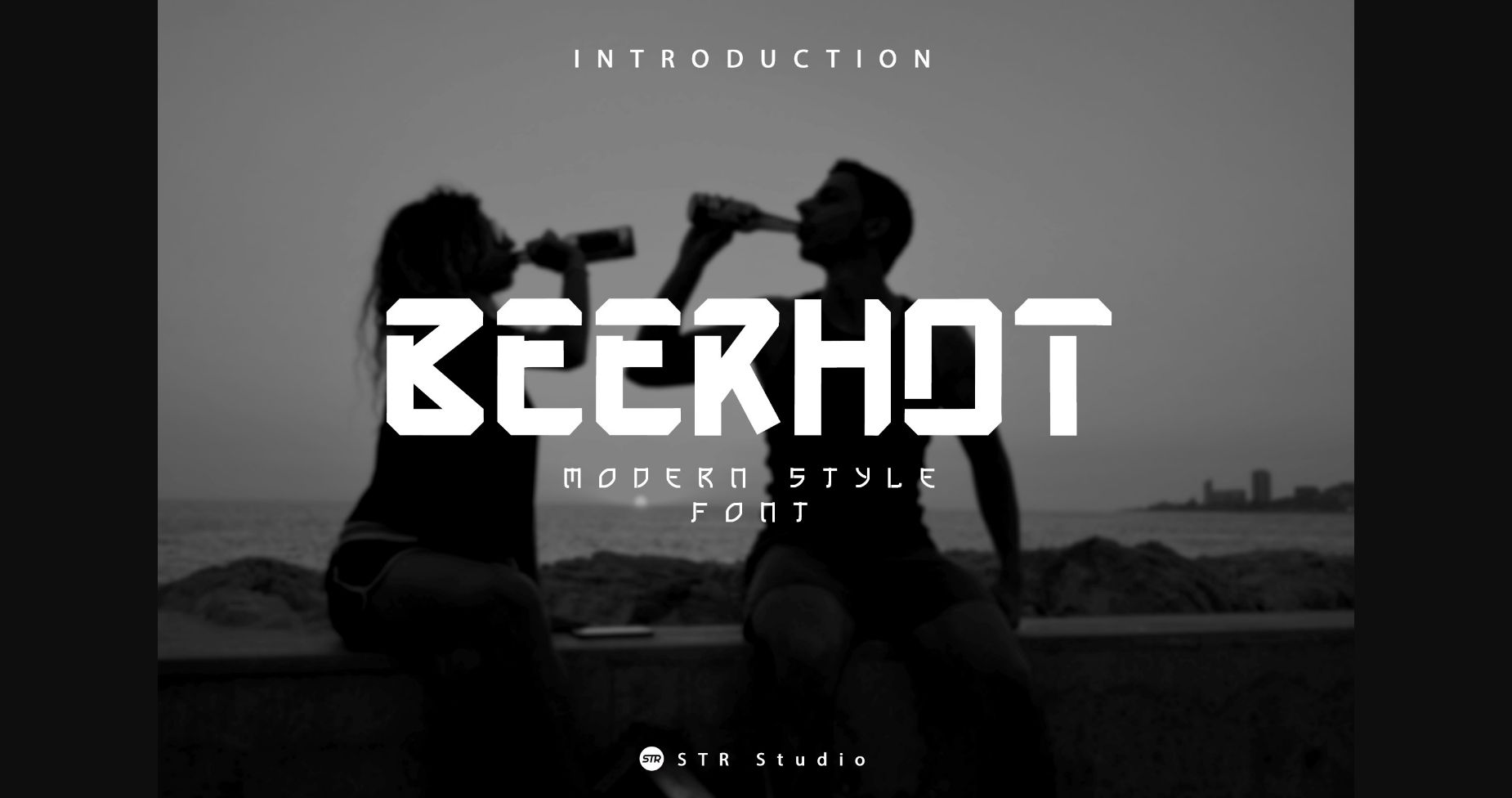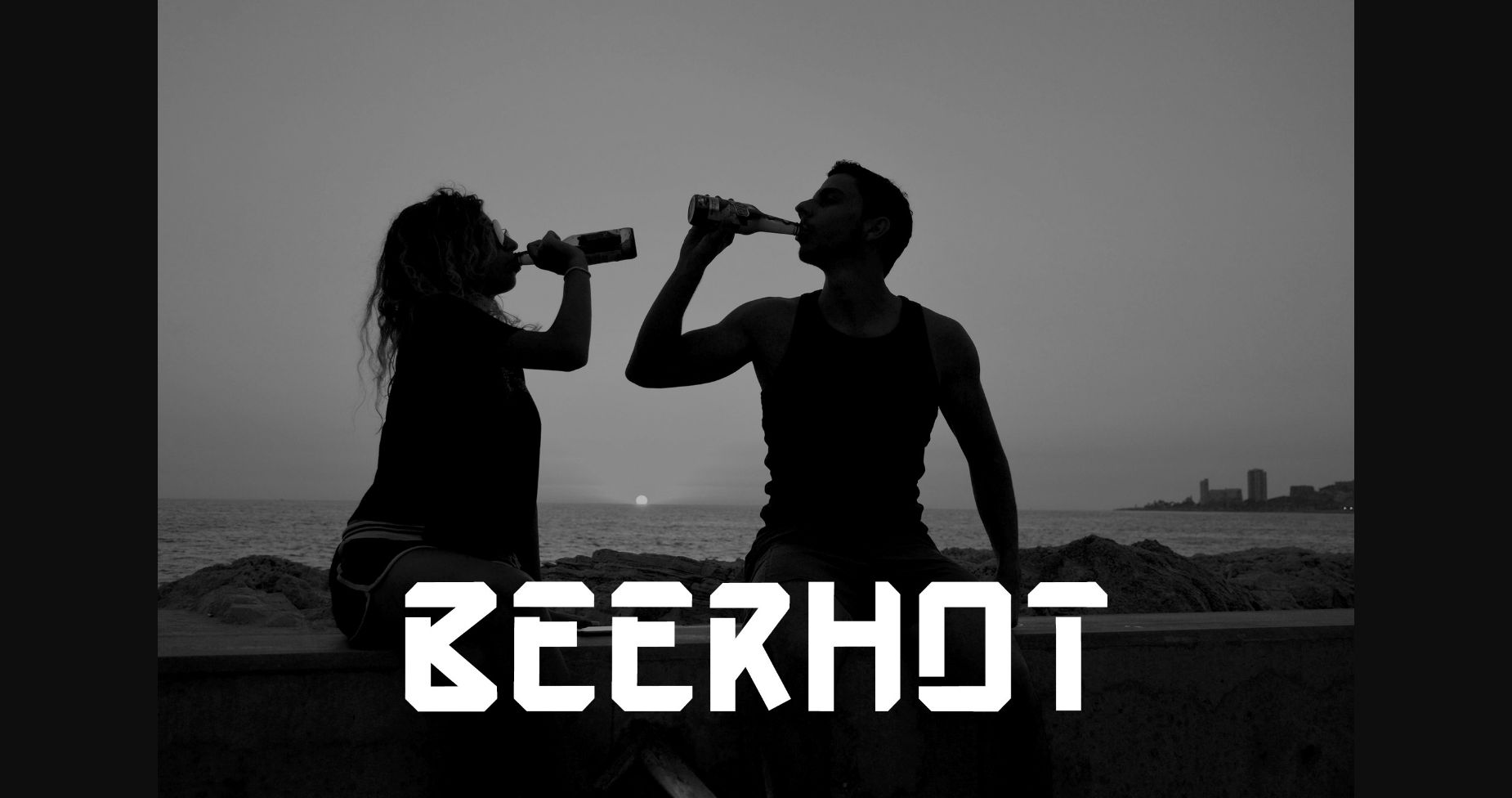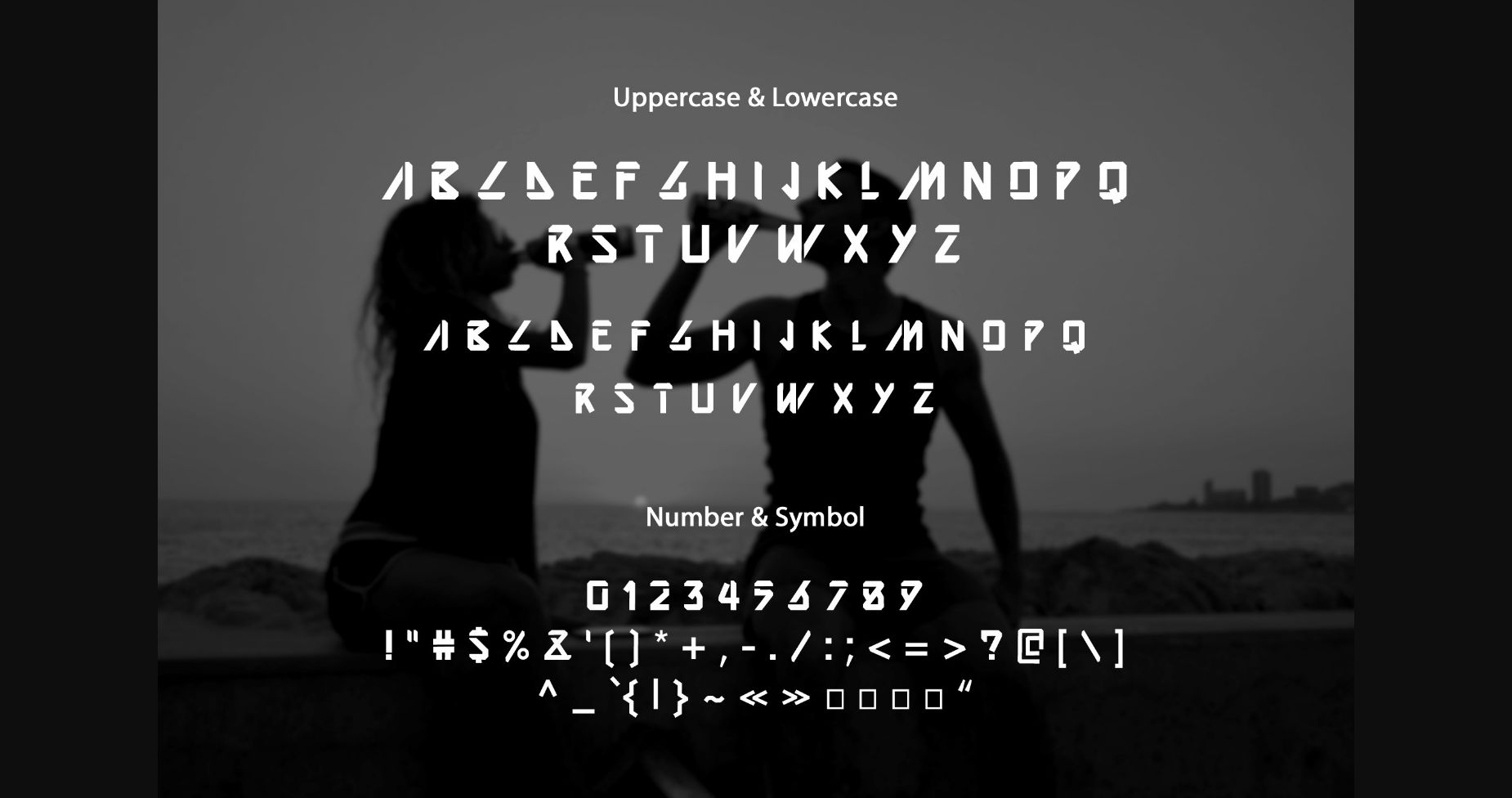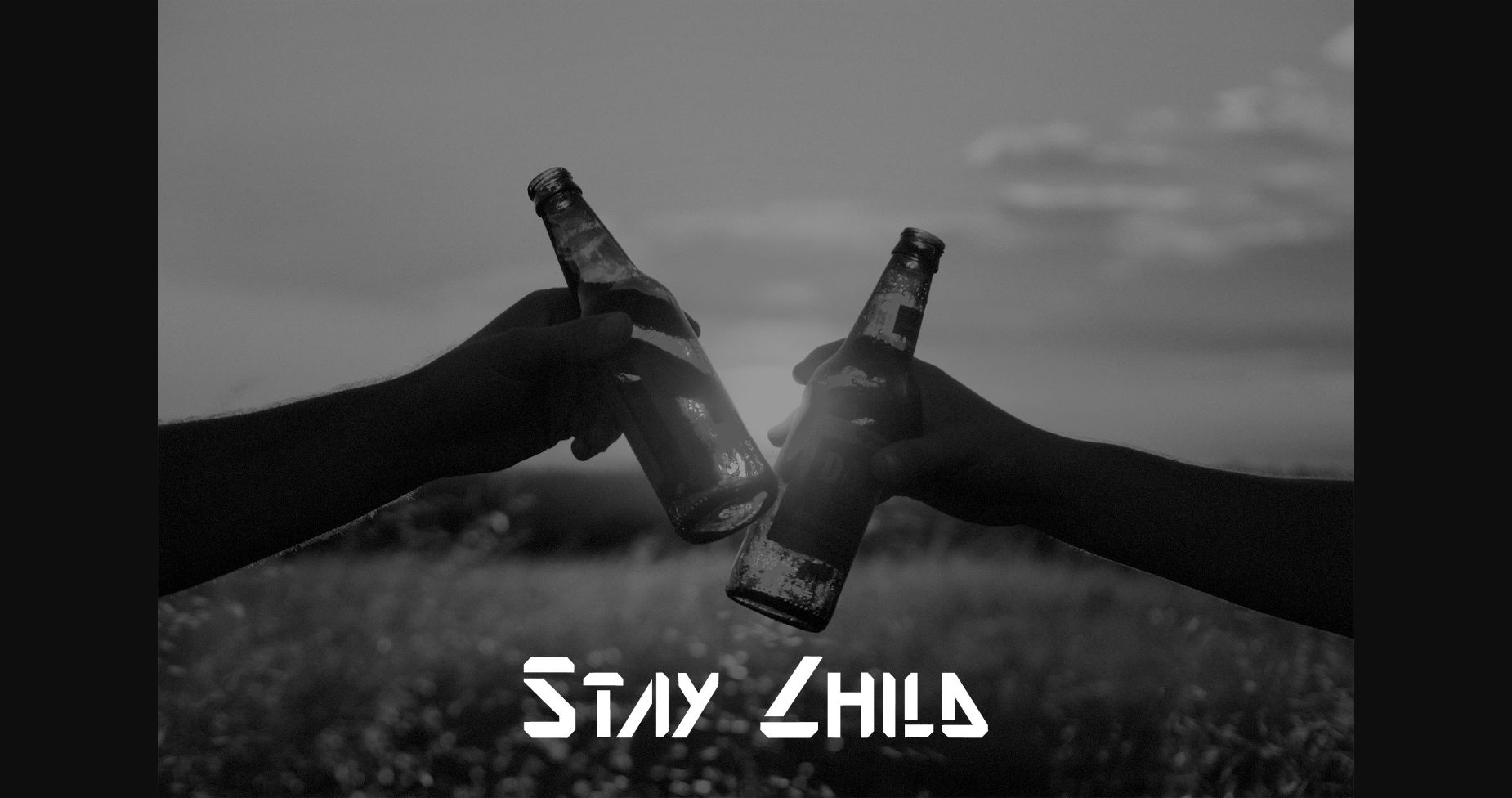
HomeSans Serif FontsBeerhot Font Sans Serif Fonts Beerhot Font FacebookXPinterestWhatsApp 1 of 6 ... Beerhot Font Poster 2... Beerhot Font Poster 3... Beerhot Font Poster 4... Beerhot Font Poster 5... Beerhot Font Poster 6... About Beerhot Font Beerhot is a modern sans serif font suitable for branding materials, business cards, quotes, posters, and many more! Add it to any of your creative projects, and they will capture everyone’s attention! DOWNLOAD NOW People also explored Lovely Hello Sweets Anandayu Font PAG Etiketa Play Book Font Gazillions Font Cardinal Bella Canvas 3001 TShirt Mockup Observation Font Lust Slim 341 0 TagsBeerhotBeerhot Font Previous articleBrodoth FontNext articleBoreland Font LEAVE A REPLY Cancel reply Comment: Please enter your comment! Name:* Please enter your name here Email:* You have entered an incorrect email address! Please enter your email address here Website: Save my name, email, and website in this browser for the next time I comment. Personal Use Free Anggraini Personal Use Free Read more about this font Fakedes Personal Use Free Read more about this font Borg Personal Use Free Read more about this font Veronica Personal Use Free Read more about this font BLOG Fonts That Capture the Spirit of New York City New York City is more than just a place—it’s an experience, a rhythm, a visual language... Elegant Wedding Invitation Fonts – Handwritten & Script Fonts Top 10 Handwritten Fonts That Elevate Your Designs Exploring Font Trends